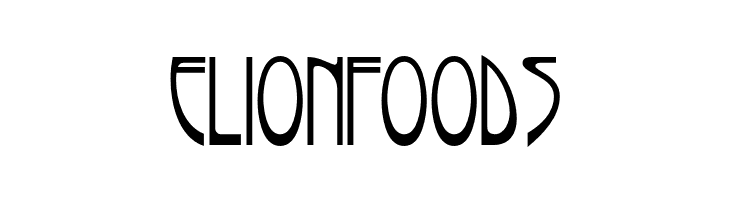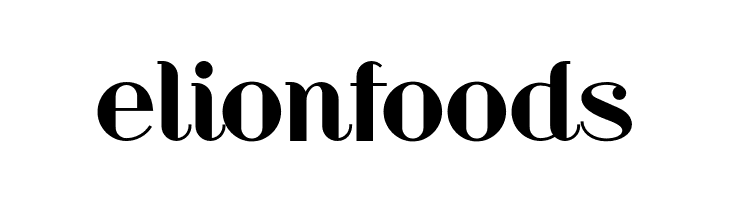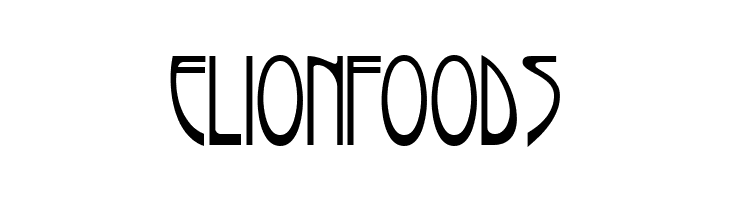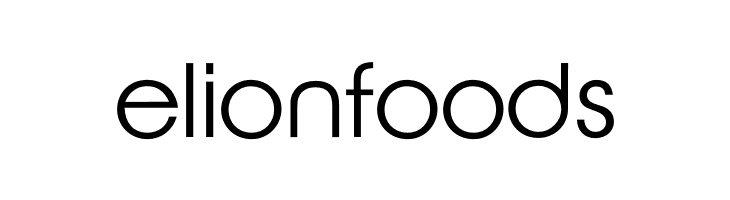
• Ribbon
( Fonts by Mike Wolf )
A bold, decorative font with ribbon-like strokes and high contrast.
• Ricks American NF
A bold, three-dimensional font with strong shadow effects for impactful design.
• Rilo
A whimsical, decorative font with tall, narrow letterforms and artistic details.
• Rio Black Pesonal Use
A bold, geometric font with a modern and impactful style.
• RioGlamour
A modern, geometric sans-serif font with a clean and balanced design.
• Riot Squad NF
A bold, modern font with high contrast and elegant curves.
• RiotSquadNF
A bold, high-contrast serif font with modern elegance.
• RitzyRemixNF
A bold, geometric font with Art Deco influences, perfect for stylish and sophisticated designs.
• Rivanna NF
A modern, artistic font with elongated, narrow letterforms and sharp angles.
• RivannaNF
A modern, decorative font with elongated, narrow letterforms and a unique geometric style.